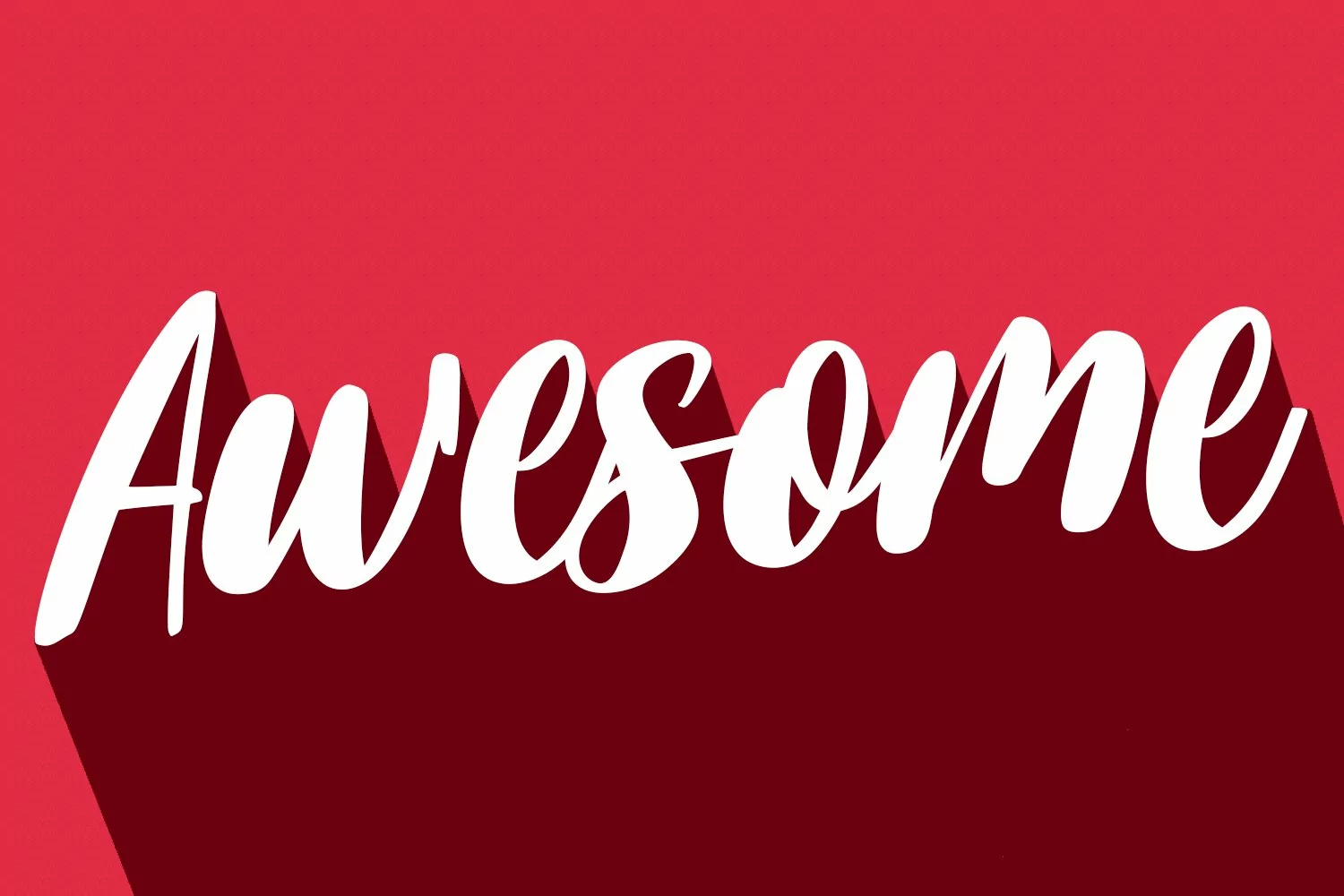
Romantika is Handwritten Display font. With bold stroke, slant and fun character with a bit of ligatures. To give you an extra creative work. Romantika font support multilingual more than 100+ language. This font is good for logo design, Social media, Movie Titles, Books Titles, a short text even a long text letter and good for your secondary text font with sans or serif. Make a stunning work with Romantika font.
Romantika